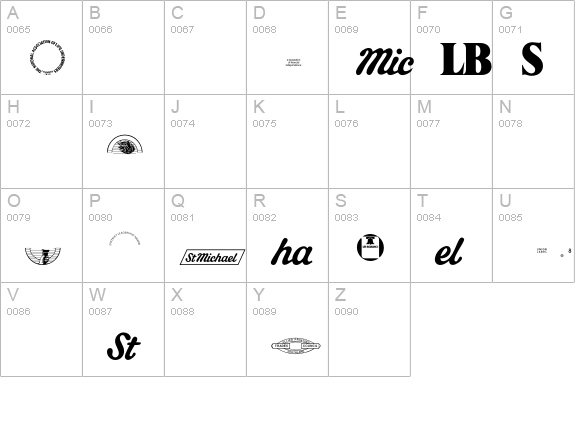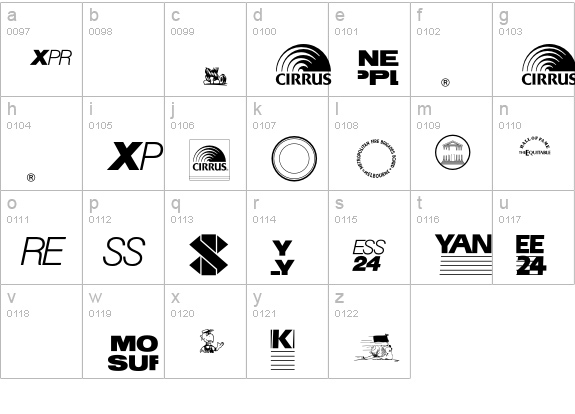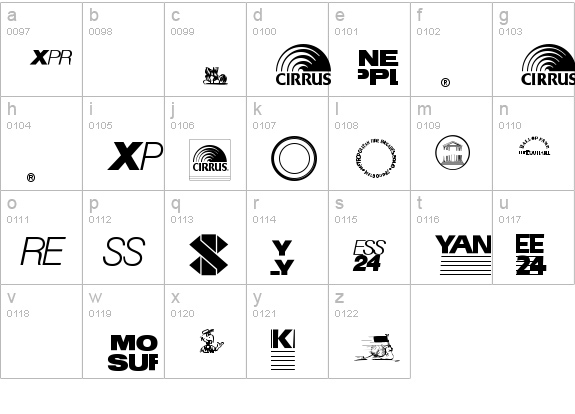
BusinessServicesP03 Font Details
BusinessServicesP03 is a modern and professional font that exudes sophistication and elegance. With its clean lines and sleek design, this font is perfect for a wide range of business services including consulting, finance, and marketing. The sharp edges and bold strokes of BusinessServicesP03 make it stand out from the crowd, giving your projects a polished and professional look. What sets BusinessServicesP03 apart is that it is available for free download at FontsMarket.com. This means you can easily access this high-quality font without any cost, making it a valuable resource for your design projects. Whether you are creating a logo, business card, brochure, or website, BusinessServicesP03 will elevate your designs and help you make a lasting impression on your audience. Don't miss out on this opportunity to enhance your business materials with the stylish and versatile BusinessServicesP03 font. Download it for free today and take your branding to the next level.